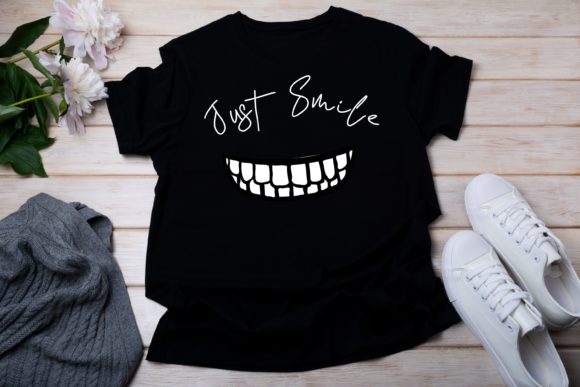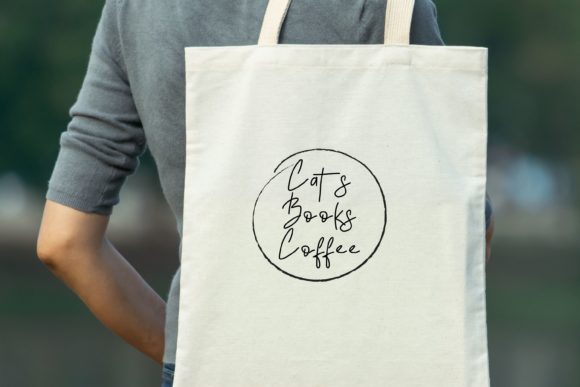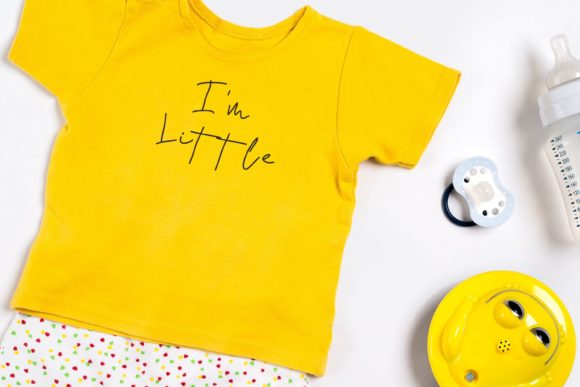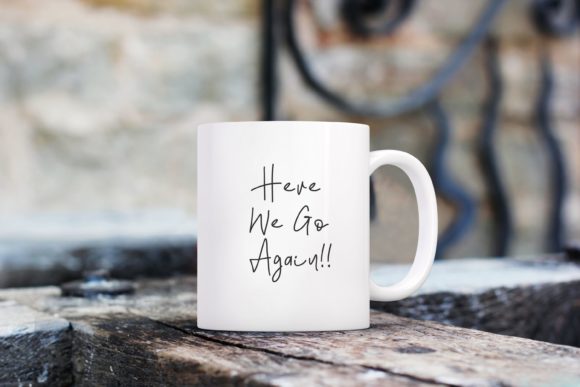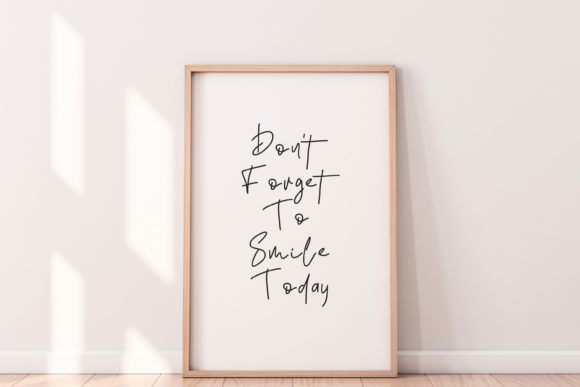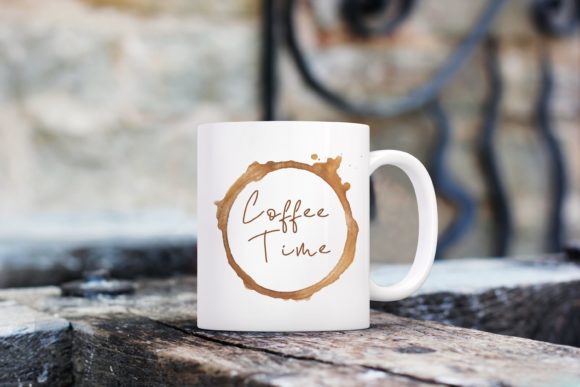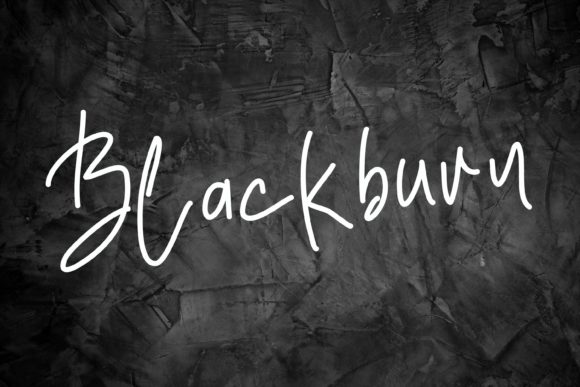
Introducing Blackburn Font: The Perfect Choice for Elegant and Delicate Designs
Are you looking for a font that exudes elegance and sophistication? Look no further than Blackburn Font, a slim and delicate handwritten font that is perfect for a variety of design projects. In this article, we’ll take a closer look at Blackburn Font, its features, and how you can use it to elevate your designs.
What is Blackburn Font?
Blackburn Font is a beautiful, handwritten font that is characterized by its slim and delicate strokes. It’s a fun and versatile font that works well on a range of projects, from wedding invitations and merchandise to branding, stickers, business cards, and more. Its elegant and refined appearance makes it perfect for designers and crafters who want to add a touch of sophistication to their designs.
Key Features of Blackburn Font
- Slim and delicate strokes: Blackburn Font features slim and delicate strokes that give it a refined and elegant appearance.
- Handwritten style: The font has a beautiful, handwritten style that adds a personal touch to your designs.
- Versatile: Blackburn Font works well on a range of projects, from wedding invitations to business cards and merchandise.
- Easy to read: Despite its delicate appearance, Blackburn Font is easy to read, making it perfect for body text and headings.
How to Use Blackburn Font
Blackburn Font is a versatile font that can be used on a range of projects. Here are some ideas to get you started:
- Wedding invitations: Blackburn Font is perfect for wedding invitations, adding a touch of elegance and sophistication to your designs.
- Merchandise: Use Blackburn Font on merchandise such as t-shirts, mugs, and tote bags to add a personal touch to your designs.
- Branding: Blackburn Font is a great choice for branding projects, such as logos, business cards, and letterheads.
- Stickers: Use Blackburn Font on stickers to add a touch of elegance and sophistication to your designs.
Why Choose Blackburn Font?
So why choose Blackburn Font for your designs? Here are just a few reasons:
- Unique and elegant: Blackburn Font has a unique and elegant appearance that will set your designs apart from the rest.
- Versatile: The font is versatile and can be used on a range of projects, making it a great addition to your font library.
- High-quality: The font is high-quality and comes with a range of characters, including uppercase and lowercase letters, numbers, and punctuation marks.
Tips for Using Blackburn Font
Here are a few tips for using Blackburn Font in your designs:
- Use it sparingly: Blackburn Font is a delicate font, so use it sparingly to avoid overwhelming your designs.
- Pair it with bold fonts: Pair Blackburn Font with bold fonts to create contrast and add visual interest to your designs.
- Experiment with colors: Experiment with different colors to find the perfect combination for your designs.
In conclusion, Blackburn Font is a beautiful and elegant handwritten font that is perfect for a range of design projects. Its slim and delicate strokes, versatile style, and ease of use make it a great choice for designers and crafters who want to add a touch of sophistication to their designs. Whether you’re working on wedding invitations, merchandise, branding, or stickers, Blackburn Font is a great choice. So why not give it a try and see how it can elevate your designs?